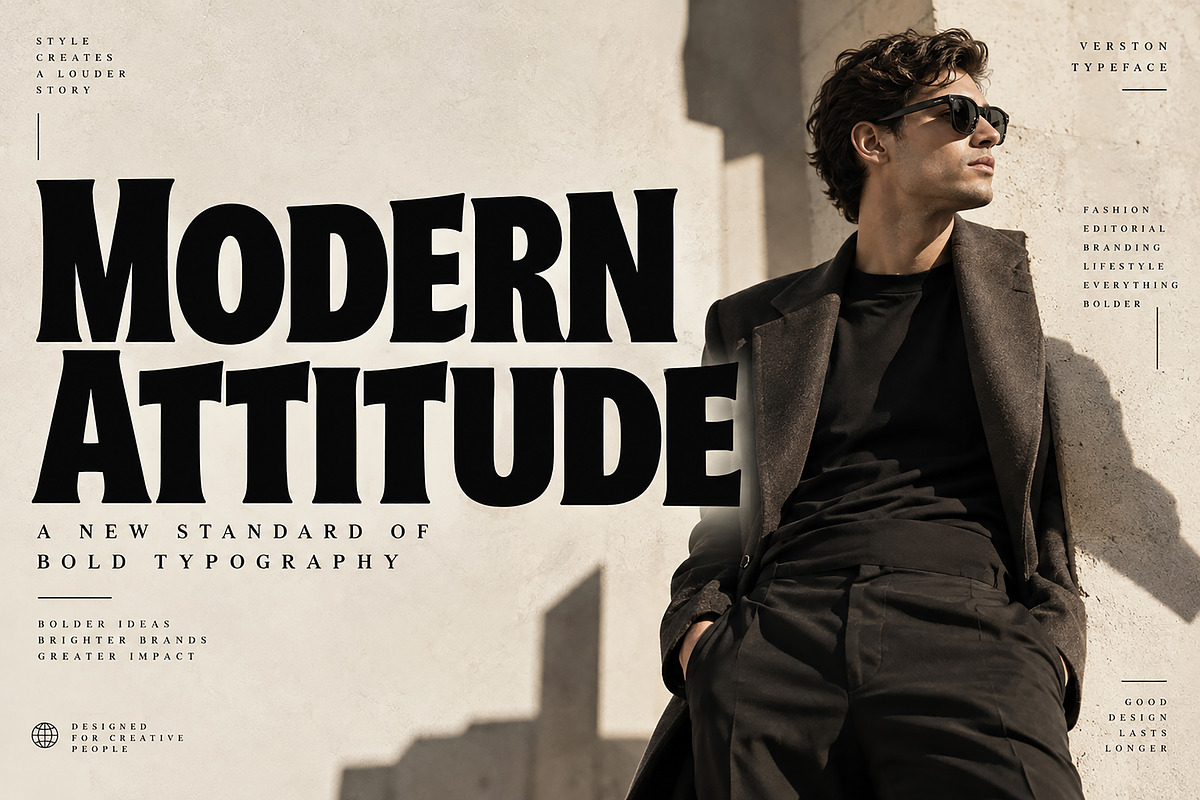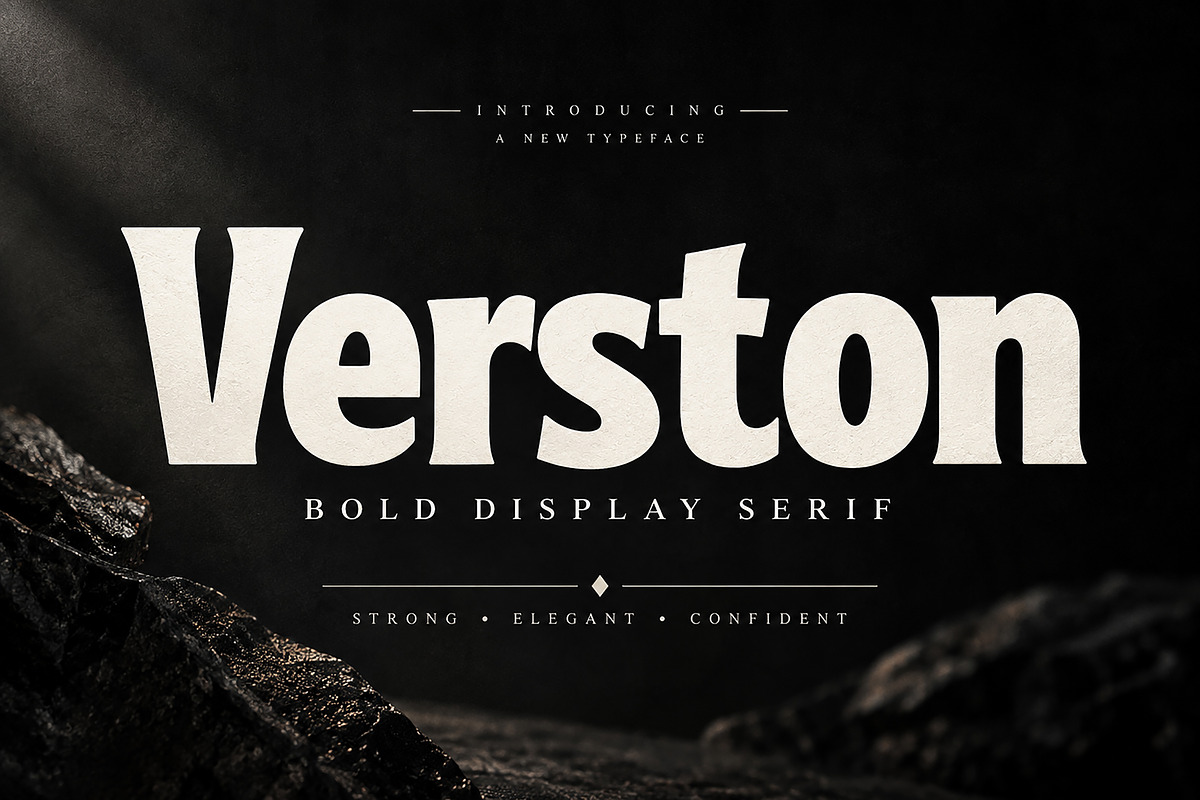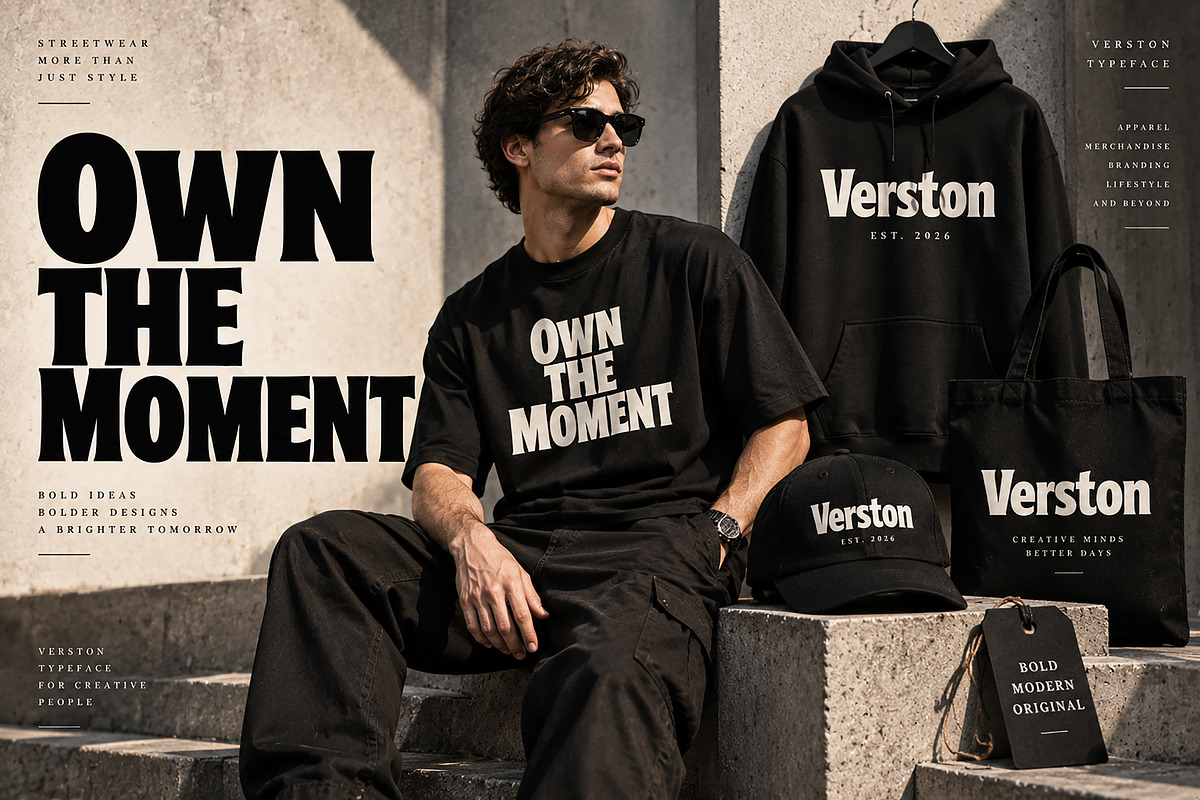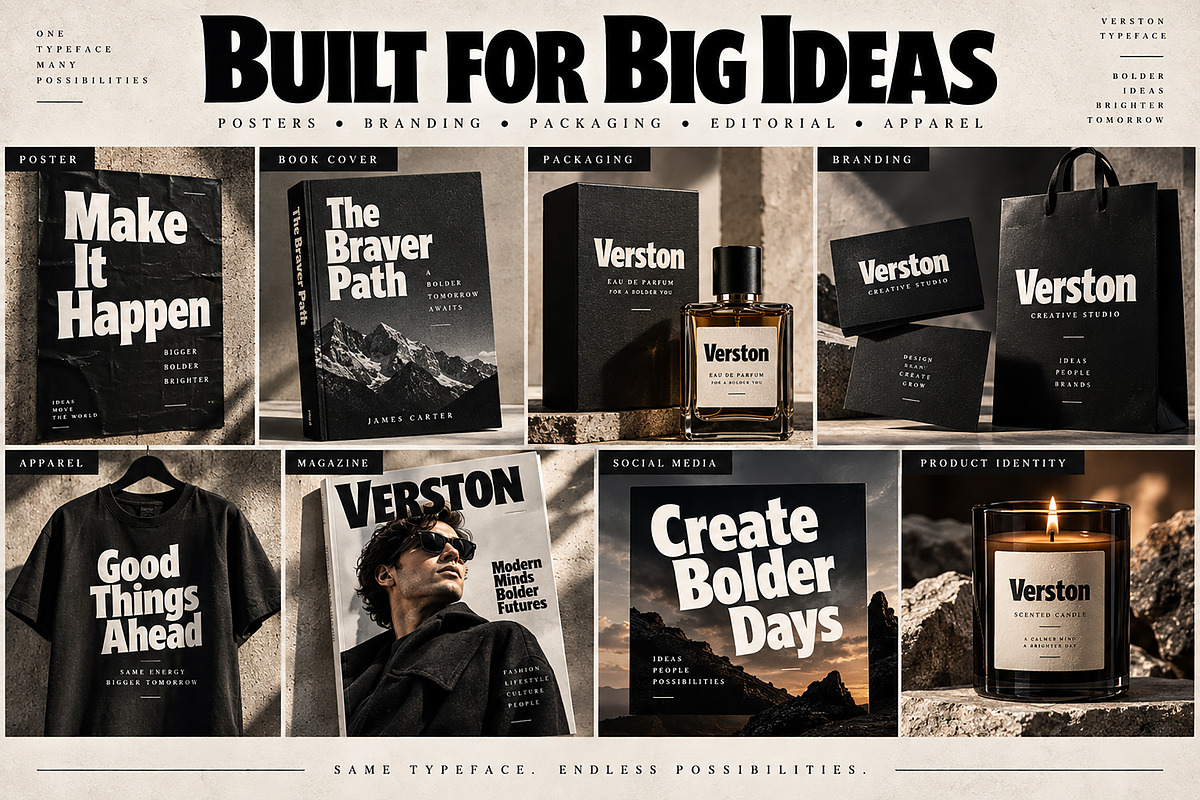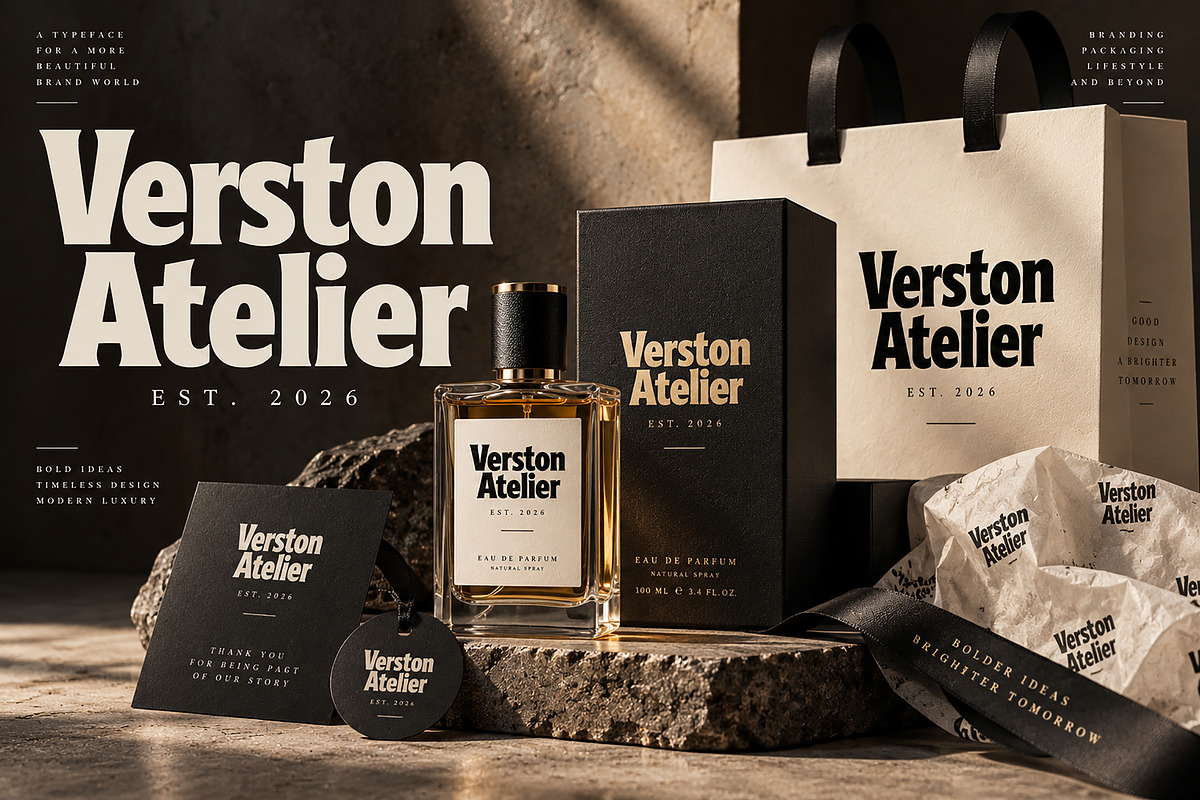
Verston — Strong. Elegant. Confident
Verston is a bold and distinctive display serif typeface designed to make your typography stand out. With its heavy weight, expressive curves, strong presence, and elegant serif details, Verston brings a confident editorial character to both modern and premium designs.
Perfect for designers looking to create eye-catching logos, branding, fashion graphics, posters, editorial layouts, packaging, apparel, book covers, magazine covers, social media graphics, and advertising campaigns.
Its powerful letterforms work beautifully at large sizes, making Verston an excellent choice for headlines, titles, statements, and brand identities that need a strong visual impact.
Logo & Brand Identity
Fashion Branding
Luxury Branding
Posters & Advertising
Editorial Design
Magazine Covers
Product Labels
T-Shirts & Apparel
Streetwear Graphics
Social Media Designs
Marketing Campaigns
Creative Headlines
Promotional Materials
Font Name: Verston
Style: Bold Display Serif
Verston — Strong. Elegant. Confident.
Give your next creative project a bold typographic identity with Verston.